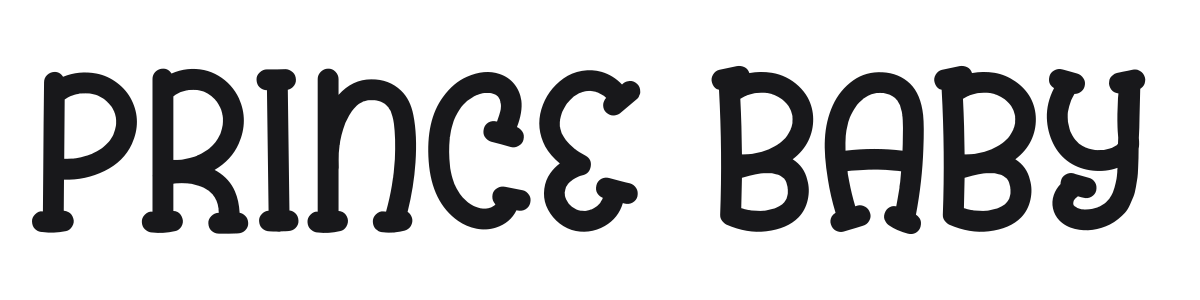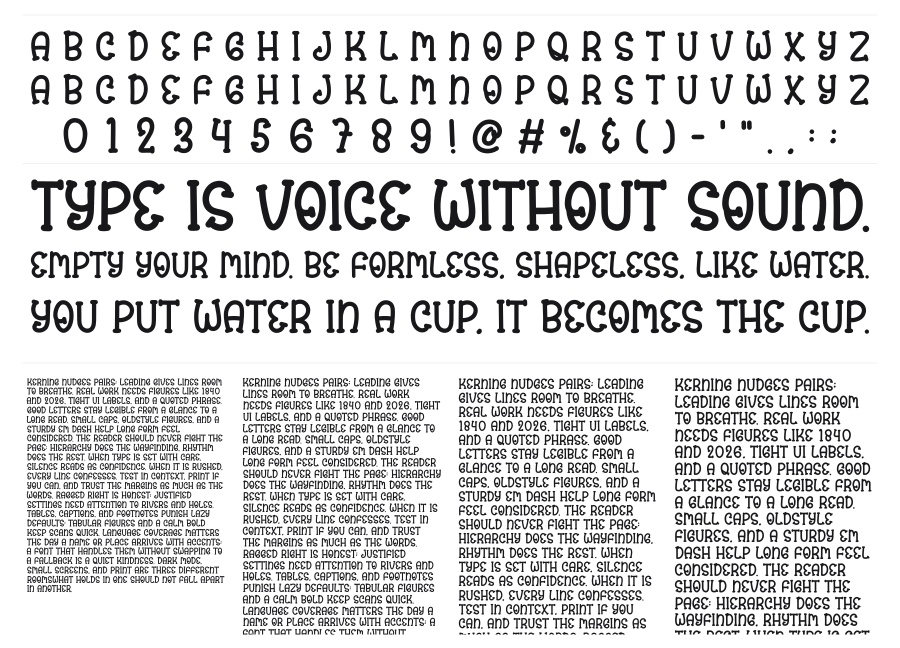
Prince Baby
Prince Baby is a heavy rounded serif display font with plump, bulbous terminals and a soft, toy-like construction. The near-monoweight strokes and nub-style serifs give it a distinctly cuddly character that reads as storybook or children's branding. It carries personality at large sizes without feeling aggressive.